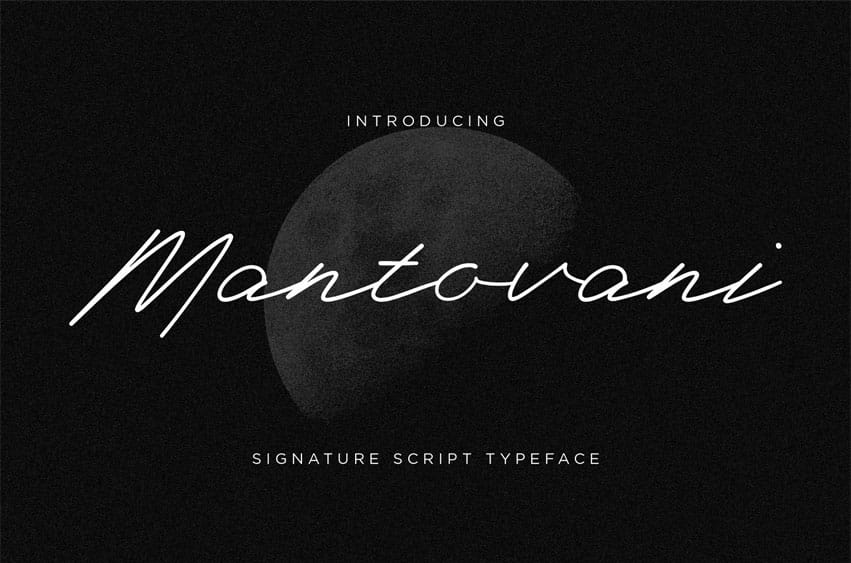
Mantovani Font is a sophisticated signature script typeface designed to bring a natural handwritten feel with a touch of luxury and modern simplicity. Inspired by authentic pen strokes and contemporary branding trends, this font delivers graceful curves, smooth connections, and effortless elegance in every letter.
Perfect for designers, entrepreneurs, and creatives seeking a refined handwritten font that feels personal yet professional. Mantonani creates stunning visual identities, making it an ideal choice for logos, branding, wedding invitations, social media content, packaging, photography watermarks, and high-end marketing materials.
Its clean and stylish appearance allows your designs to communicate confidence, authenticity, and exclusivity.
✔ Smooth Handwritten Style
Why Choose Mantonani?
Mantonani is crafted to help brands look more personal, premium, and memorable. The fluid signature style creates a genuine handwritten impression while maintaining excellent readability, making it versatile for both digital and print applications.
Whether you’re building a luxury brand, designing wedding stationery, or creating social media content that stands out, Mantonani adds sophistication and character to every project.